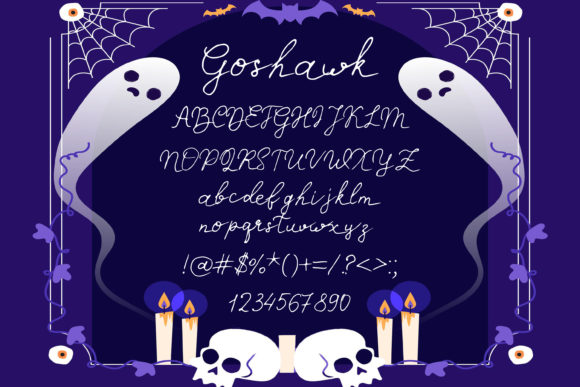
Goshawk Font: The Perfect Choice for Spooky Halloween Crafts
As the spookiest time of the year approaches, designers and crafters are on the lookout for the perfect font to add a touch of eeriness to their Halloween projects. Look no further than the Goshawk Font, a thin and simple lettered handwritten font that’s sure to send shivers down the spine. In this article, we’ll dive into the details of this creepy font and explore why it’s perfect for all your Halloween crafting ideas.
What is Goshawk Font?
Goshawk Font is a unique and intriguing typeface that’s characterized by its thin and simple lettering style. With a handwritten feel, this font has a personal and intimate touch that’s perfect for creating spooky and atmospheric designs. The Goshawk Font is designed to resemble handwriting, with subtle imperfections and variations in line width that give it a organic and human feel.
The Creepy Factor
So, what makes Goshawk Font so creepy? The answer lies in its subtle irregularities and delicate lines, which give it a slightly unsettling feel. The font’s simplicity can be deceiving, as it seems to whisper eerie tales and summon dark spirits. Whether you’re designing a haunted house invitation, a spooky party flyer, or a creepy DIY craft, Goshawk Font is sure to add an air of mystery and intrigue.
Perfect for Halloween Crafts
Halloween is a time for creativity and self-expression, and Goshawk Font is the perfect tool to help you bring your spooky ideas to life. Here are just a few ways you can use this versatile font:
- Party Invitations: Create spooky and inviting party invites that set the tone for a howling good time.
- DIY Crafts: Add a touch of eeriness to your Halloween crafts, such as pumpkin decorations, ghostly garlands, or spooky signs.
- Social Media Graphics: Design eye-catching social media graphics that showcase your spooky style and get your followers in the mood for Halloween.
- Packaging: Add a touch of whimsy and spookiness to your Halloween-themed packaging, such as candy wrappers, treat bags, or gift boxes.
Why Choose Goshawk Font?
With so many fonts to choose from, why should you choose Goshawk Font for your Halloween projects? Here are just a few reasons:
- Unique Style: Goshawk Font has a distinctive and eye-catching style that’s sure to stand out from the crowd.
- Easy to Read: Despite its thin lines, Goshawk Font is surprisingly easy to read, making it perfect for body text and titles.
- Versatile: This font is versatile enough to be used for a wide range of projects, from digital designs to handmade crafts.
- Free Spirit: Goshawk Font has a free-spirited and creative vibe that’s perfect for designers and crafters who want to push the boundaries of their imagination.
Tips for Using Goshawk Font
To get the most out of Goshawk Font, here are a few tips to keep in mind:
- Experiment with Colors: Try pairing Goshawk Font with bold and bright colors to create a striking contrast.
- Play with Texture: Add texture to your designs by layering Goshawk Font over images or patterns.
- Mix and Match: Combine Goshawk Font with other fonts or graphics to create a unique and eye-catching design.
In conclusion, Goshawk Font is a unique and captivating font that’s perfect for designers and crafters looking to add a touch of spookiness to their Halloween projects. With its thin and simple lettering style, creepy factor, and versatility, this font is sure to inspire your creativity and help you create unforgettable designs. So why wait? Download Goshawk Font today and get ready to cast a spell of creativity on your Halloween crafts!